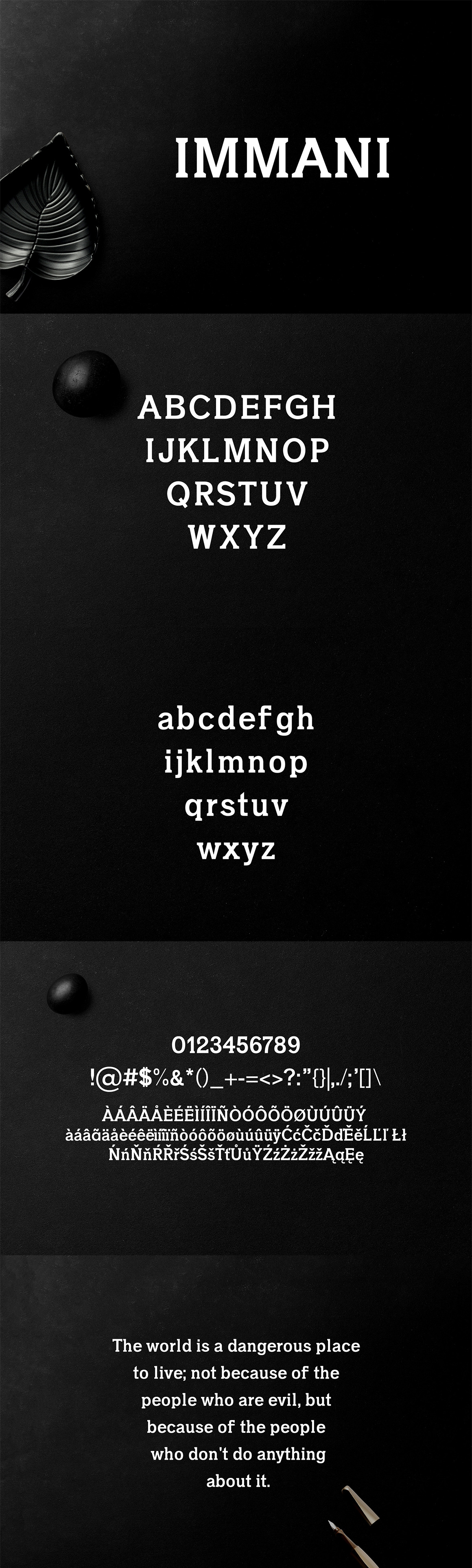
Immani 2 Font Family Pack
Immani Serif 2 Font Family Pack features unique and modern serif look and feel. Perfect for gorgeous logos, titles, web layouts and branding. It looks gorgeous in all caps with a wide-set spacing if you want to try a classy look, or beautiful on its own in capital and lowercase letters for something completely timeless.
- Font Weight: Regular and Light
Immani Font Features:
- Uppercase Multilingual Letters
- Lowercase Multilingual Letters
- Non English Characters ( Latin Supplement + Latin Extended A )